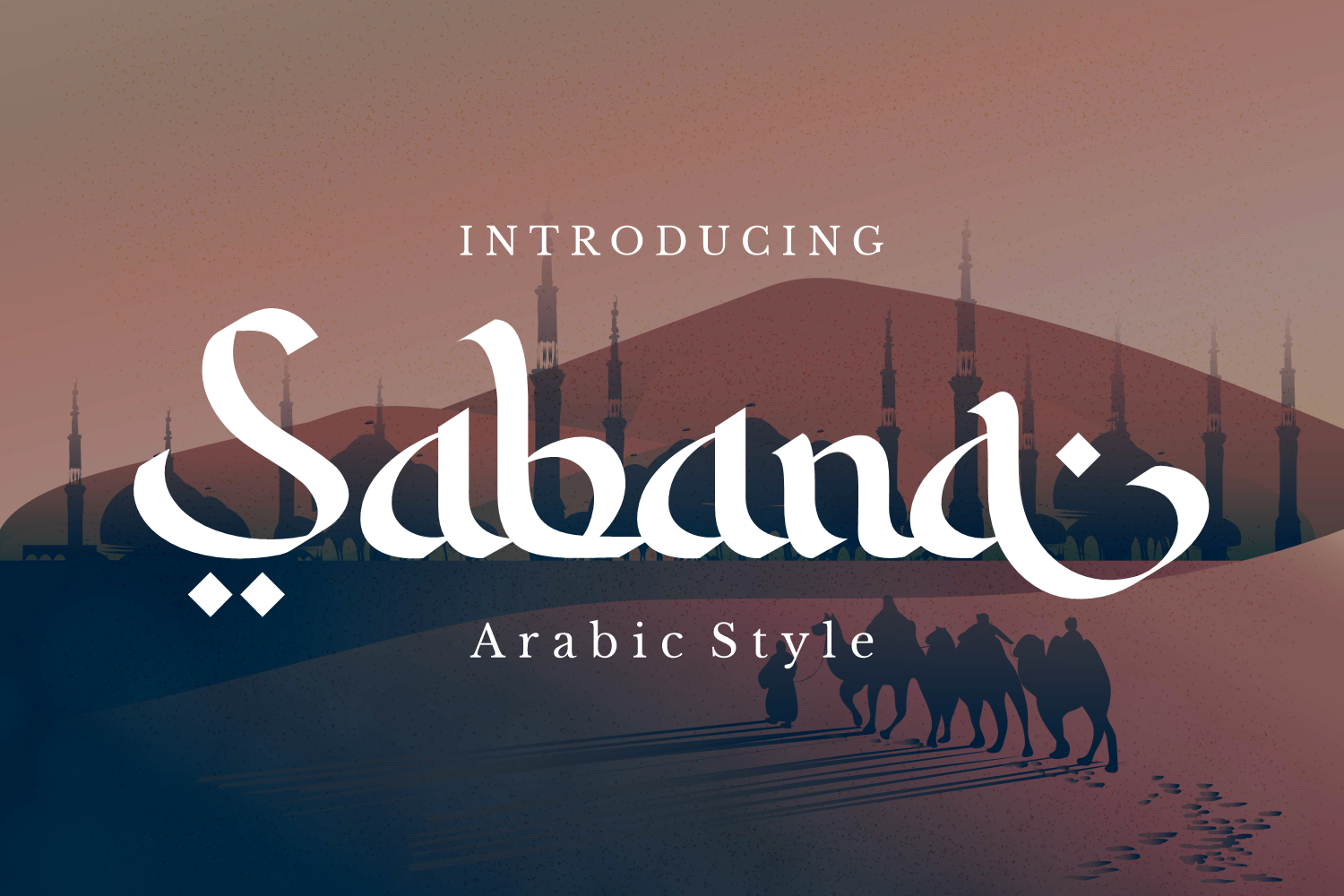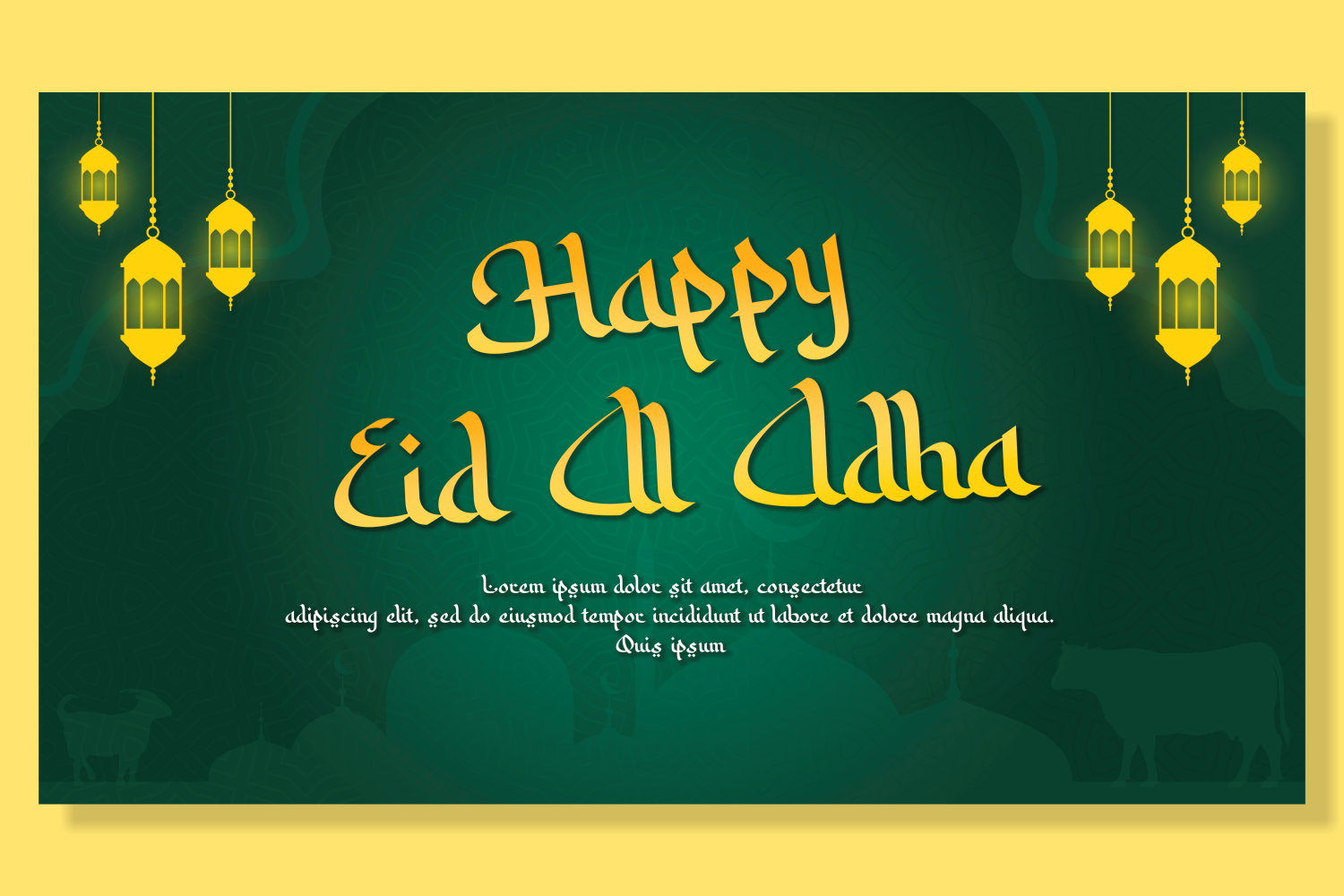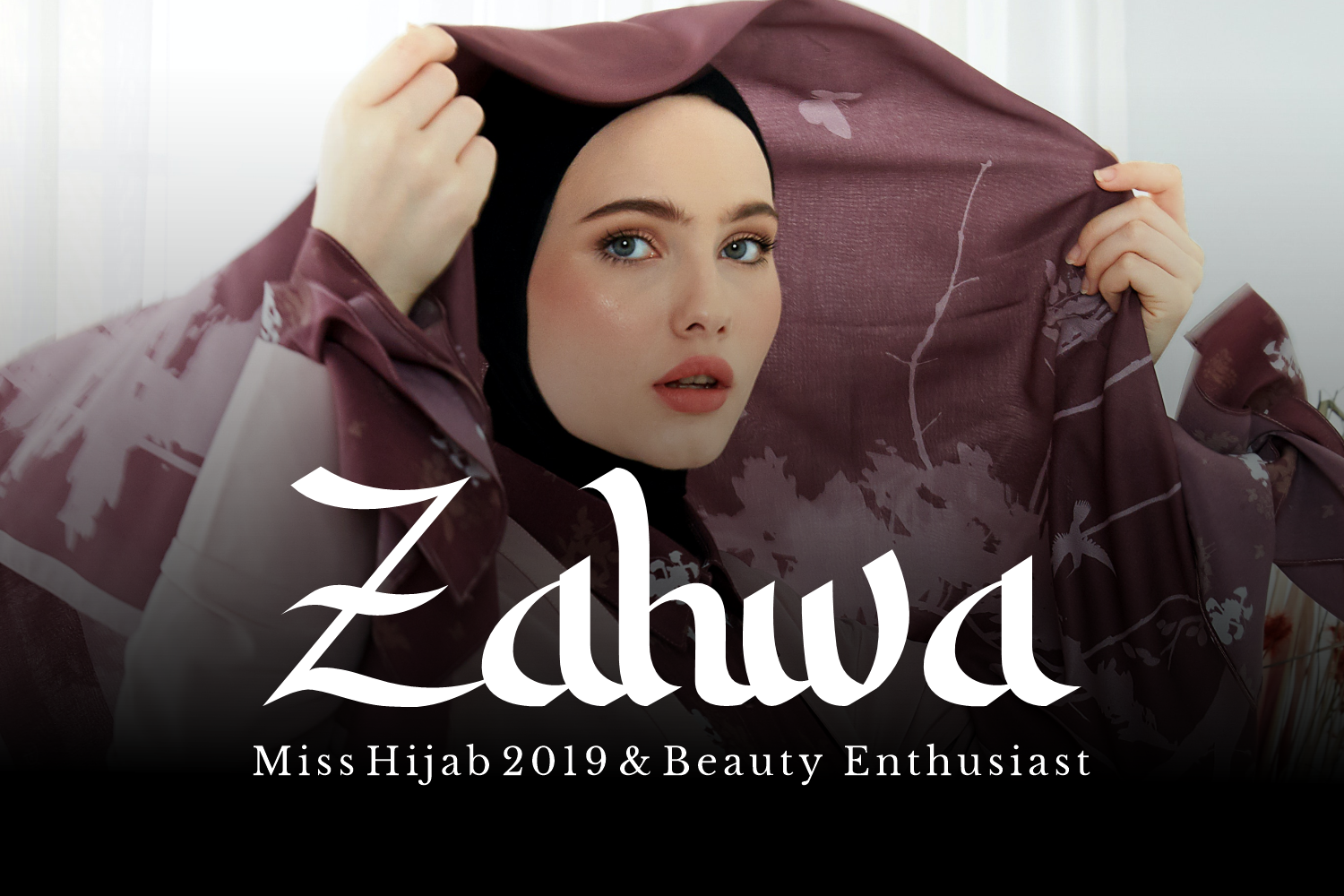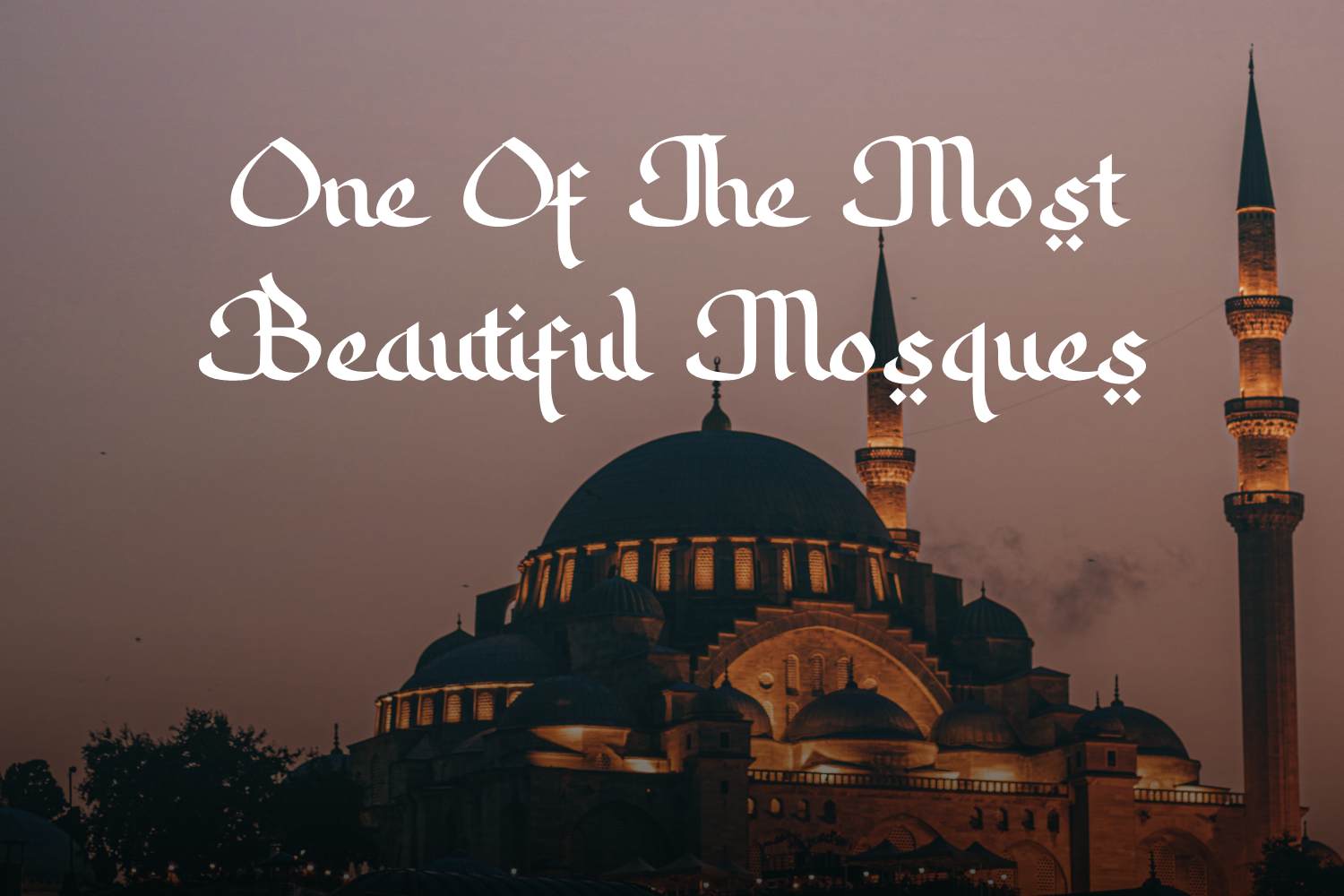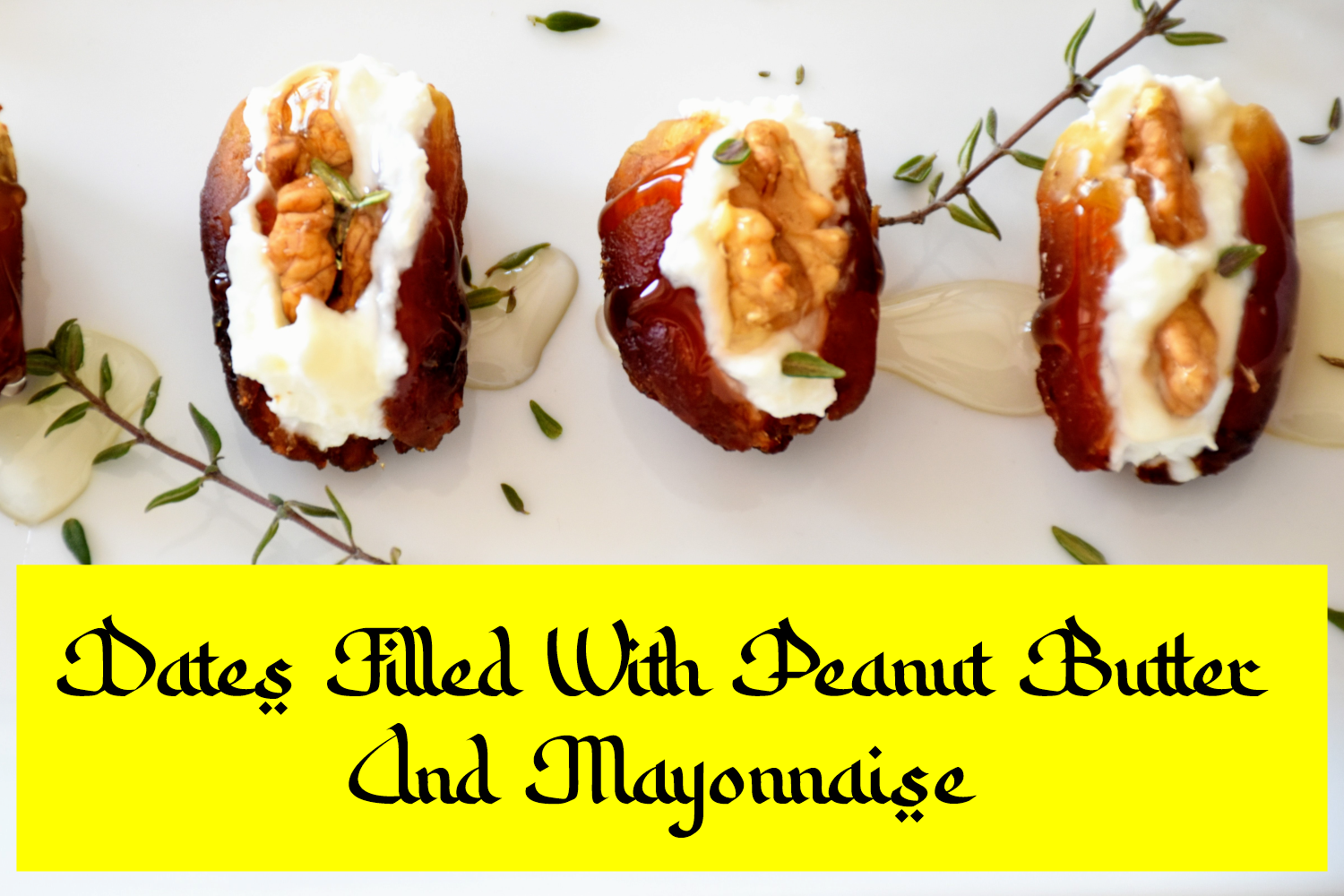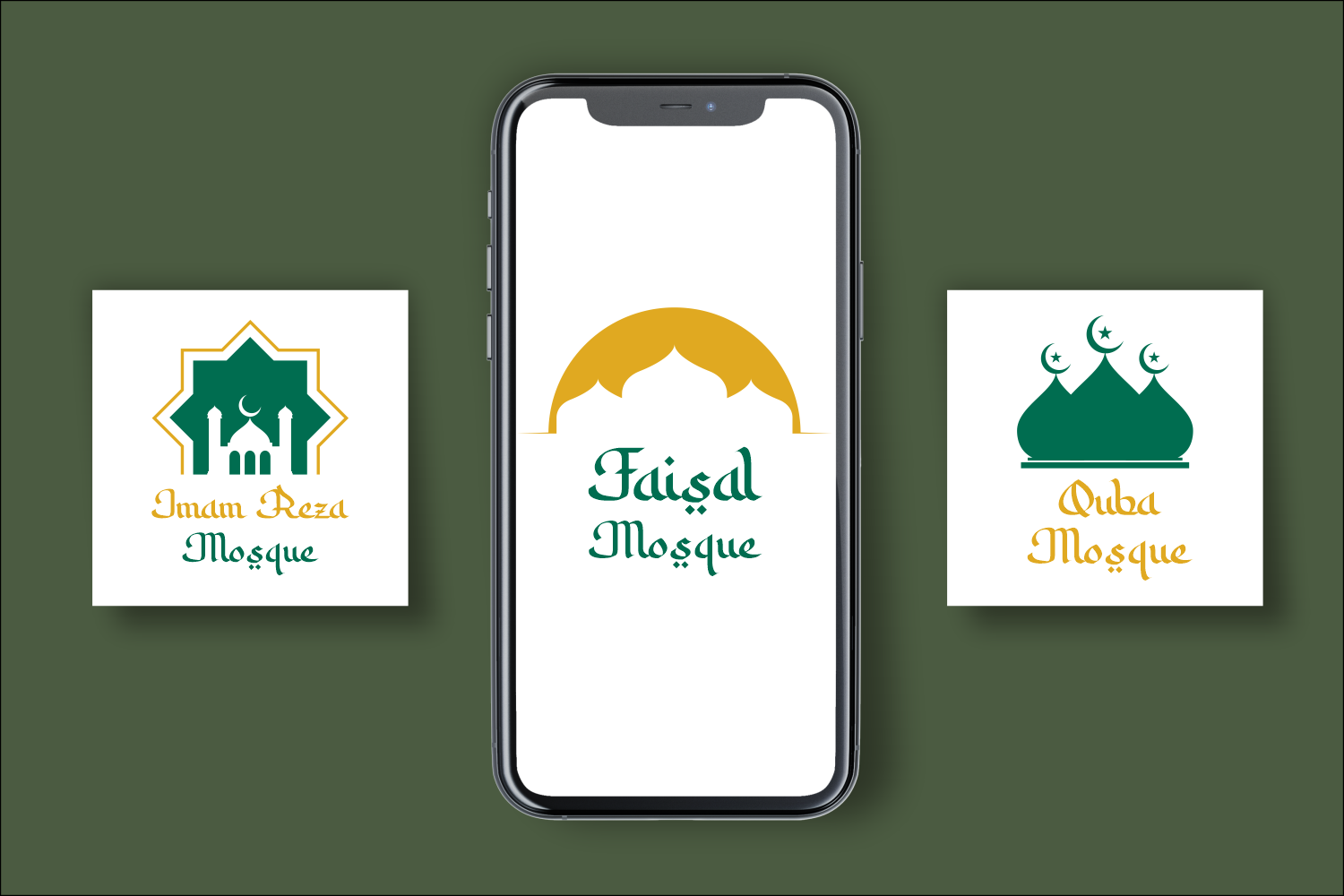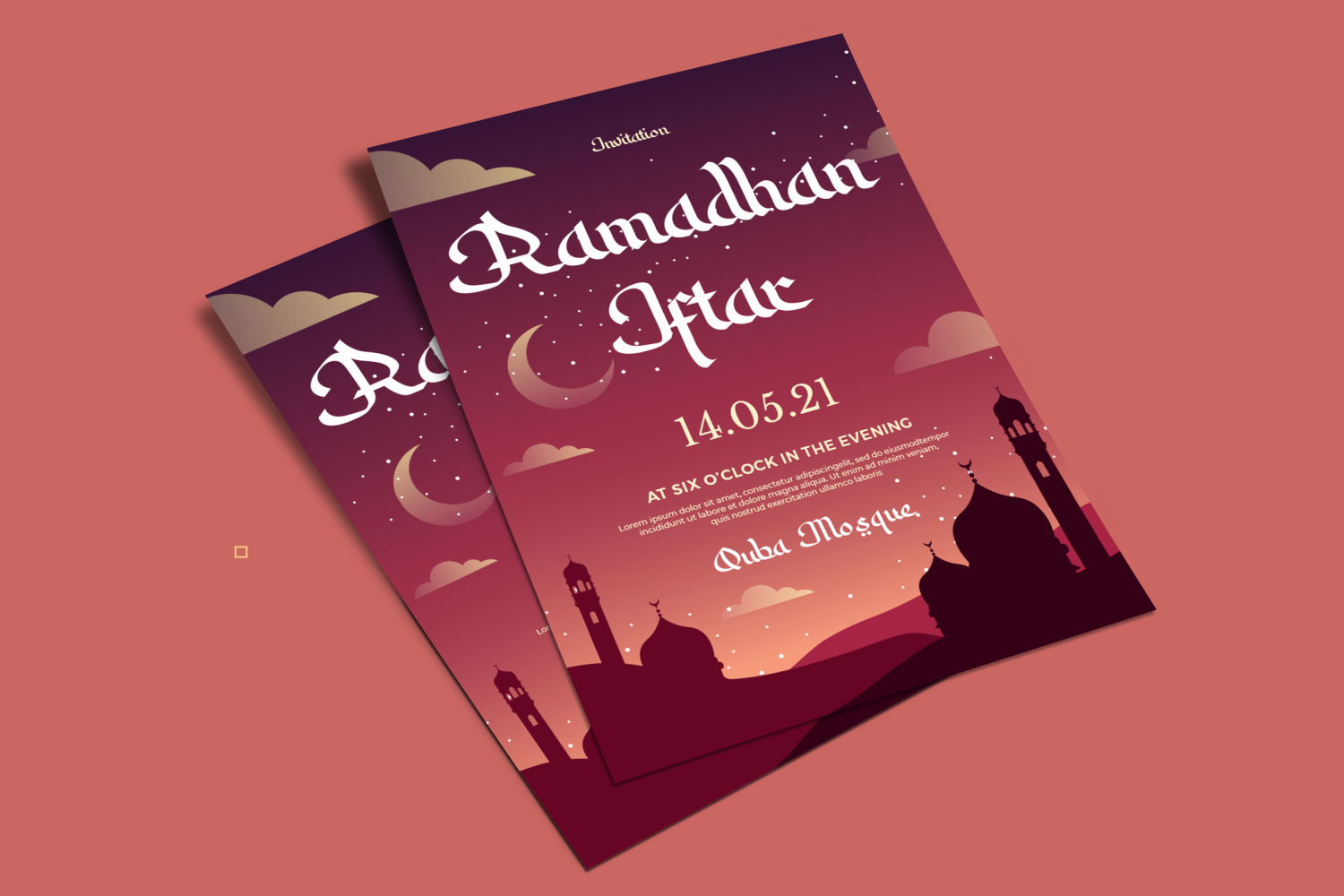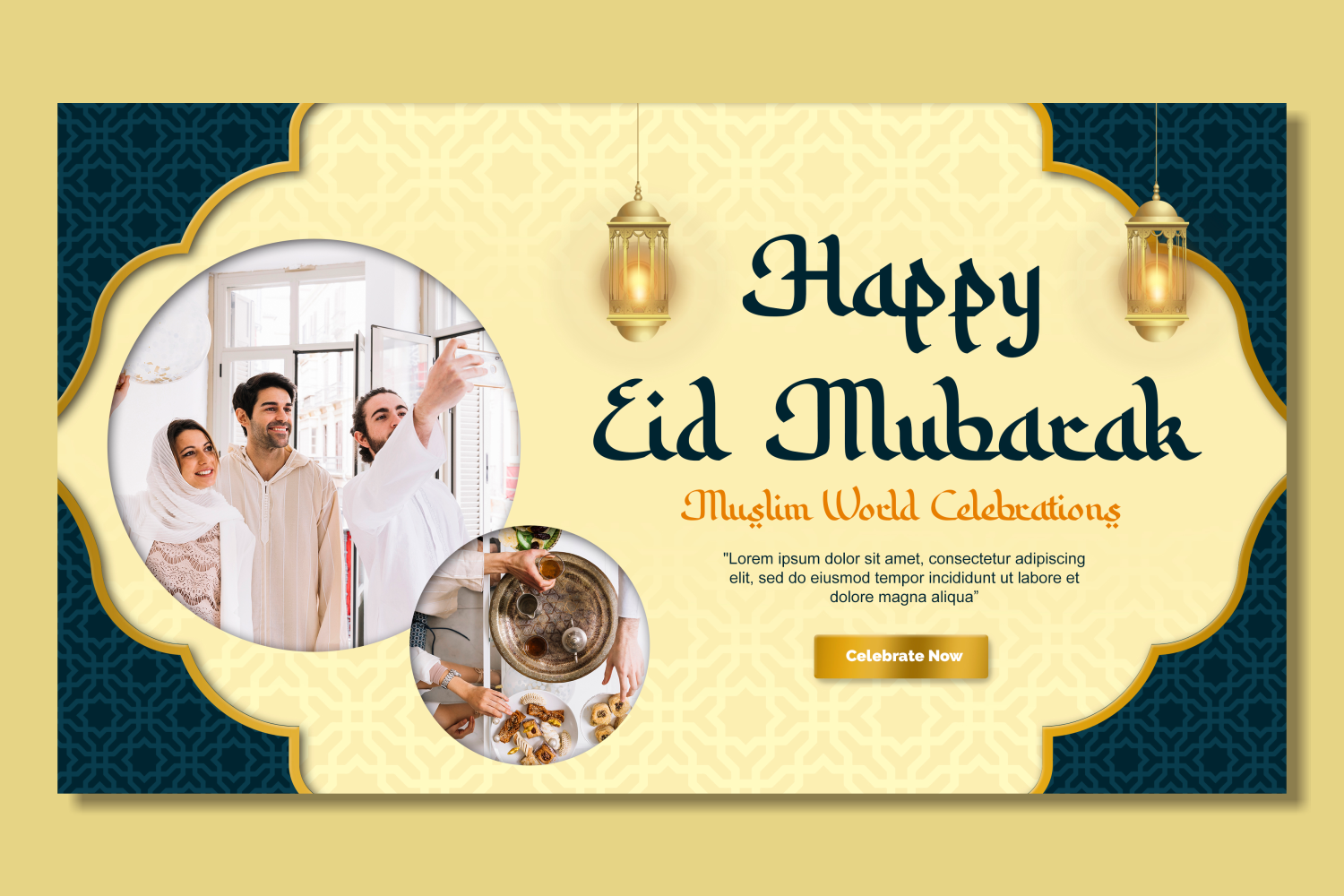
Sabana, Arabic Style Calligraphy Font
Sabana is a decorative display font inspired by traditional Arabic calligraphy. The letterforms feature a distinct rhythm with sharp, angular terminals and a high-contrast stroke weight that mimics the motion of a broad-edged pen. The design balances fluid curves with rigid, geometric structures, creating a sophisticated and culturally evocative aesthetic. Its upright, rhythmic composition maintains readability while offering a strong visual presence suitable for headlines and short-form text.
This font is well-suited for thematic projects, including greeting cards for religious holidays, event invitations, and cultural posters. Its elegant and formal character makes it effective for branding related to Middle Eastern heritage or luxury gift packaging. Whether used in large-scale titles or as a secondary accent in editorial layouts, Sabana provides a cohesive, stylized look that anchors a design with historical resonance.